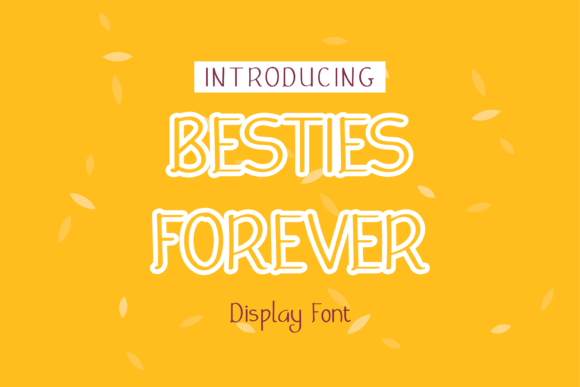
Unleash your creativity with Besties Forever Font, the ultimate display font that captures the essence of simplicity and casual charm. Designed by the renowned San Studio, this font is a true masterpiece that transforms any creative vision into an extraordinary work of art.
With its clean lines, playful curves, and effortlessly cool vibe, Besties Forever is the perfect choice for Instagram posts, DIY projects, and any design that demands a touch of laid-back elegance. Its versatility knows no bounds, making it the ideal companion for creating logos, posters, invitations, and countless other projects.
Imagine your Instagram feed adorned with captivating visuals crafted using Besties Forever. Its simple yet striking presence will draw eyes and hearts, turning your posts into conversation starters. Elevate your DIY projects to new heights with this font's ability to add a personal touch to everything you create. From handmade cards to custom home décor, Besties Forever will make your creations shine.
Whether you're a seasoned designer or just starting your creative journey, Besties Forever is the font that will unlock your full potential. Its user-friendly nature makes it accessible to all, while its stunning results will leave you breathless.
Don't settle for ordinary fonts; embrace the magic of Besties Forever and watch your creative ideas take flight. Its timeless appeal and effortless charm will make it your go-to font for years to come. Join the countless satisfied users who have discovered the transformative power of Besties Forever and let your creativity soar.